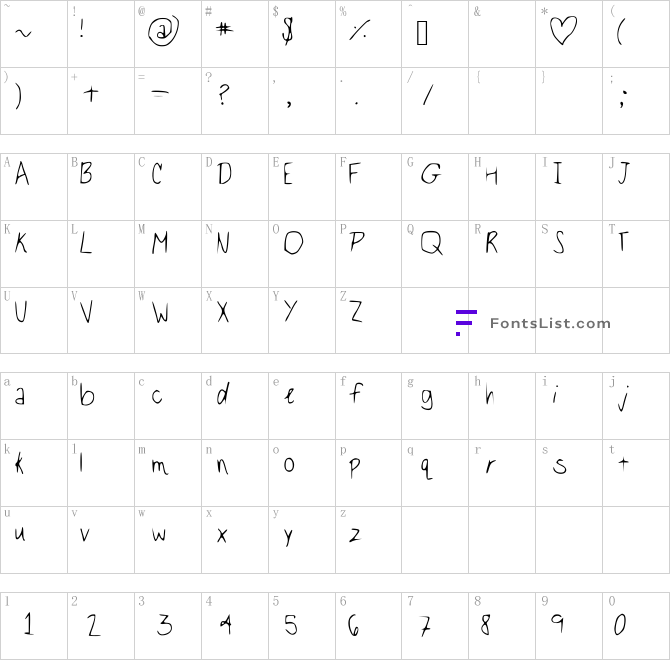
- Font Name:Be_Real__
Be_Real__.ttf is a very beautiful artistic font, Be_Real__.ttf is widely used in the design and printing of various books and pictures,Be_Real__.ttf has a strong visual impact,Be_Real__.ttf is a commonly used font in newspapers, magazines and books, and is used in posters, e-commerce Poster design, store design, logo design, font design and other fields.Be_Real__.